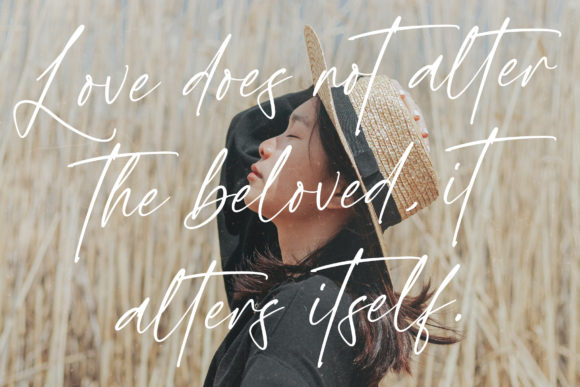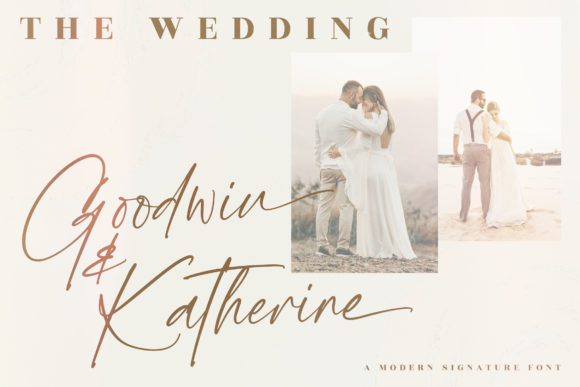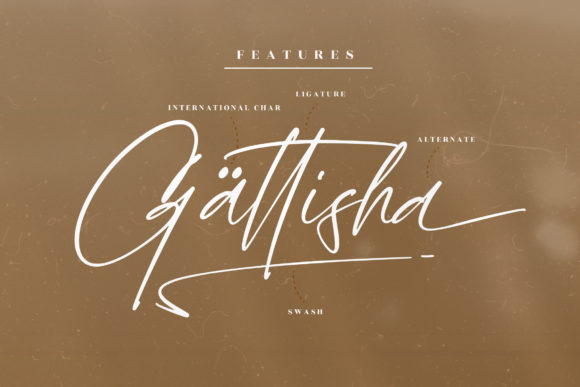
About Gerald Fletchery Font
Gerald Fletchery is a delicate, elegant and flowing handwritten font. It has beautiful and well balanced characters and as a result, it matches a wide pool of designs. This font is PUA encoded which means you can access all of the glyphs and swashes with ease!